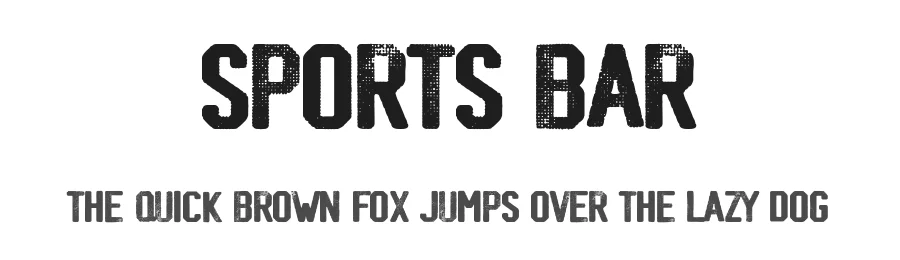
About Esperanza Font
Esperanza is a decorative font designed by Isabel Baum. It includes 56 glyphs, a medium weight, TTF (TrueType) format, and 89 languages. Esperanza is free to download; check the license details on this page before commercial use. Decorative fonts like Esperanza work best for logos, posters, packaging, and standout headlines.
Esperanza Font is a decorative font that shines as a display or heading face. Pair it with a clean sans-serif or serif font for body text β the contrast creates a clear hierarchy while the two styles stay balanced and easy to read.
Esperanza Font